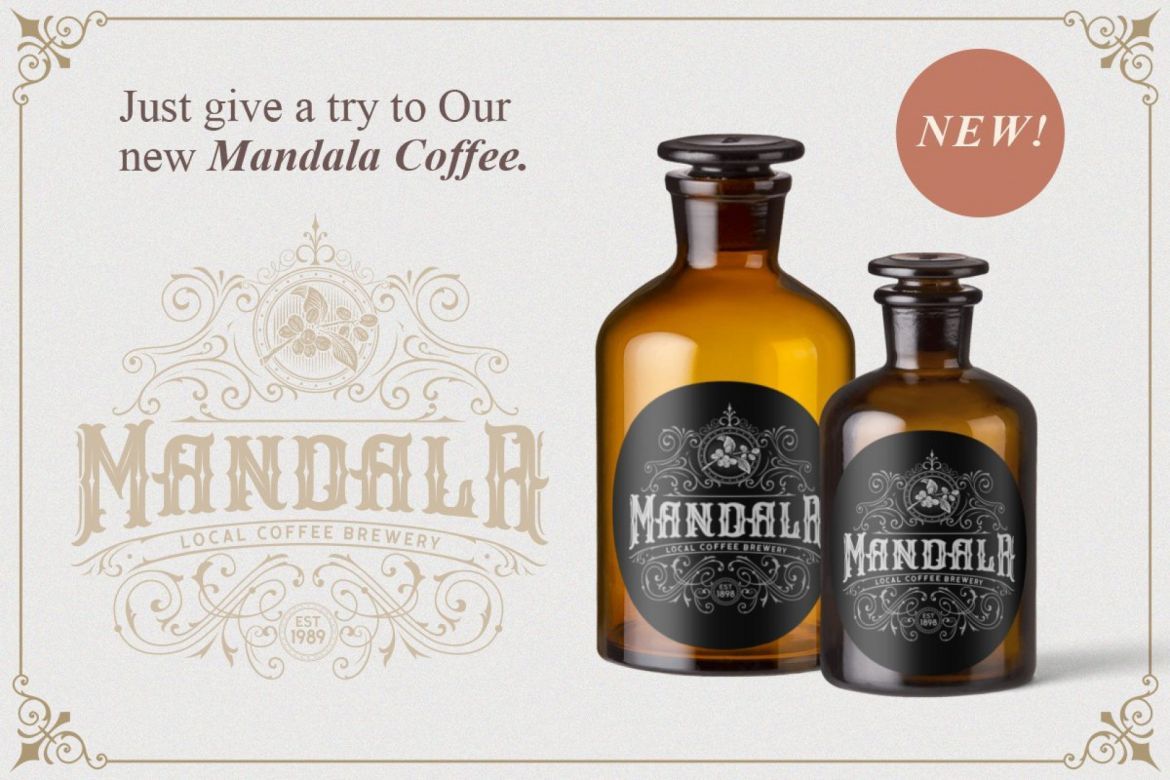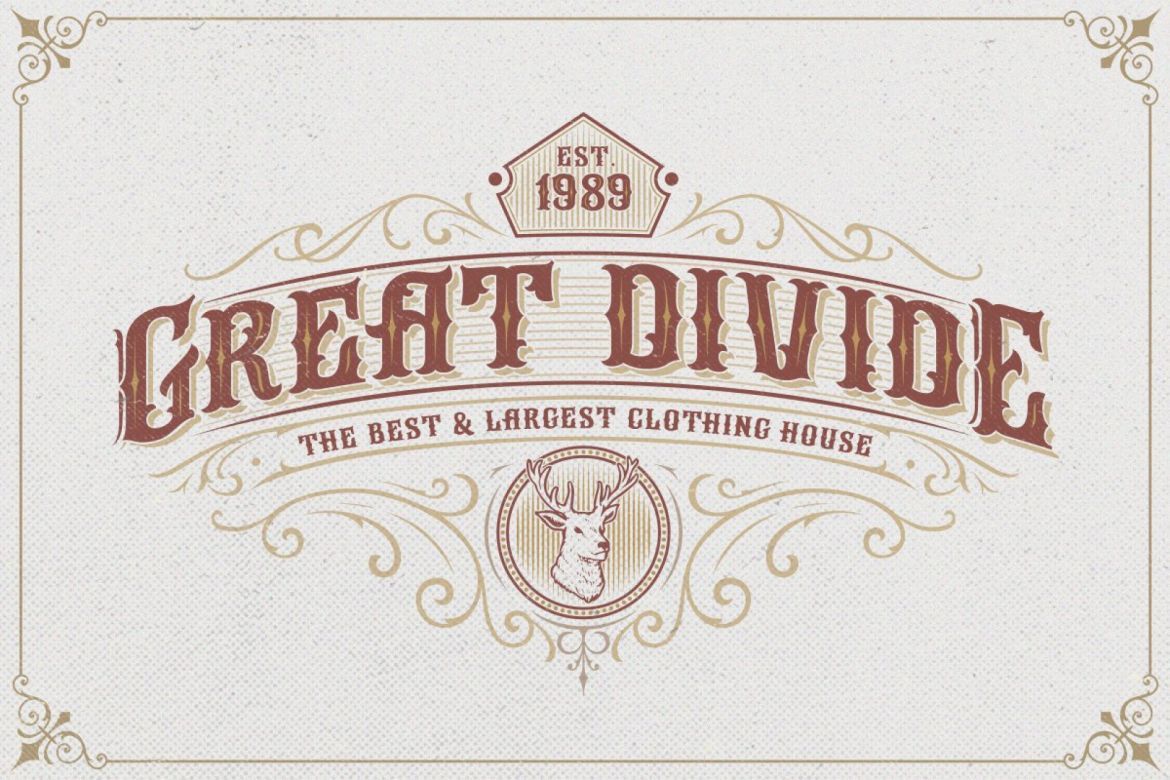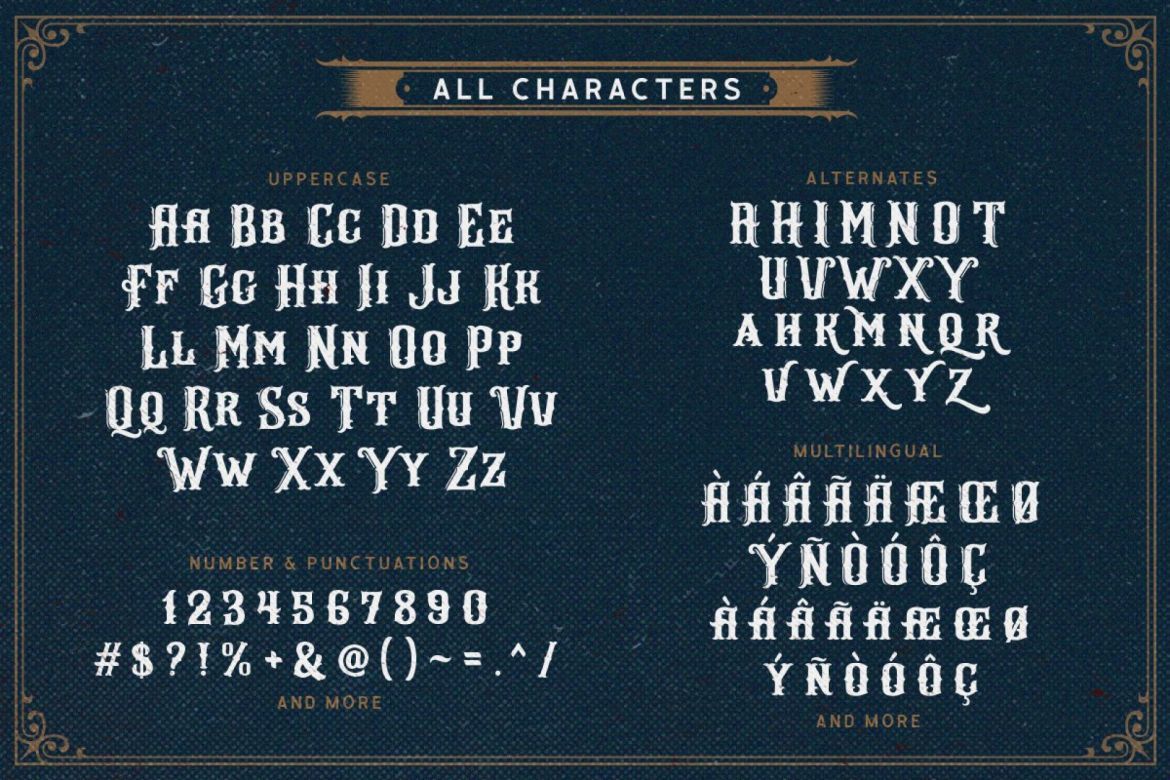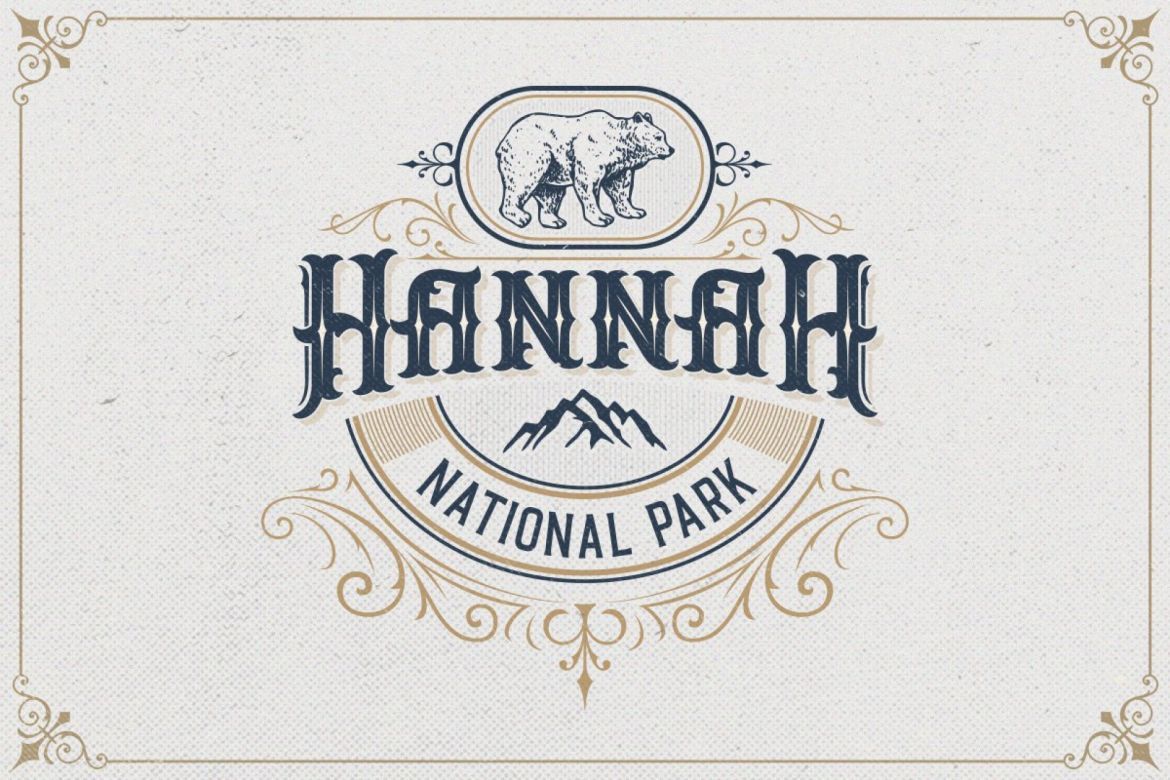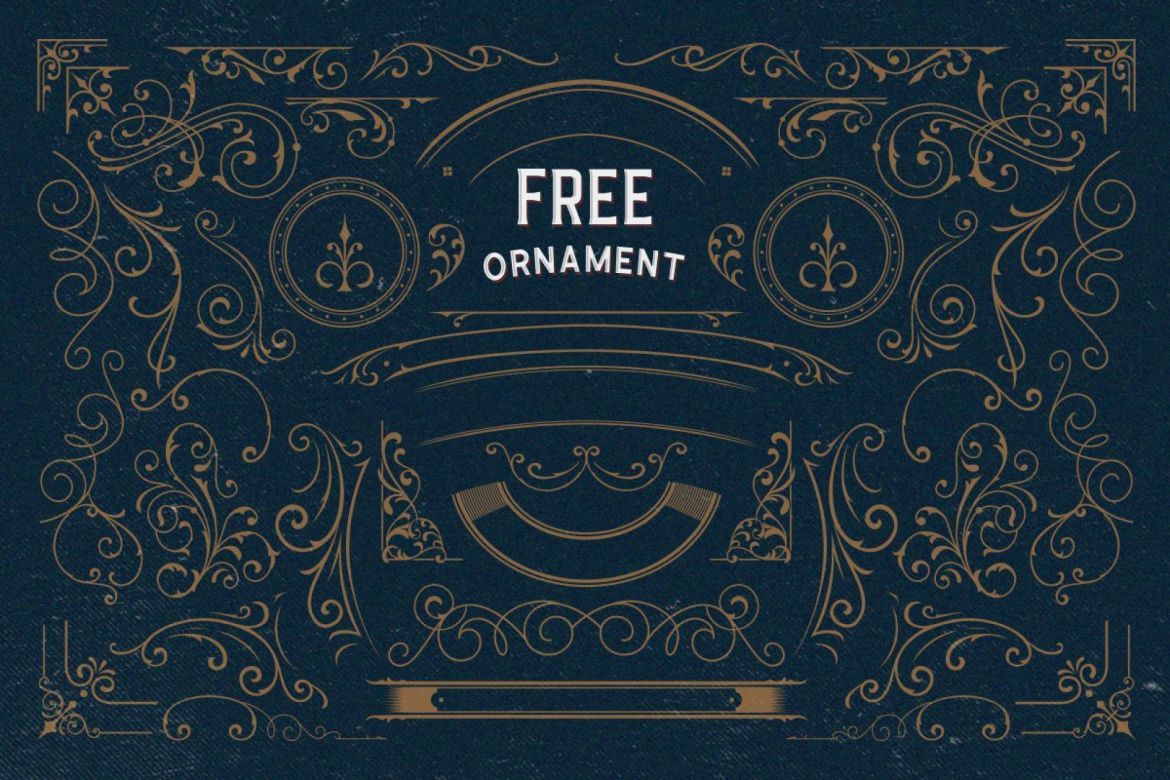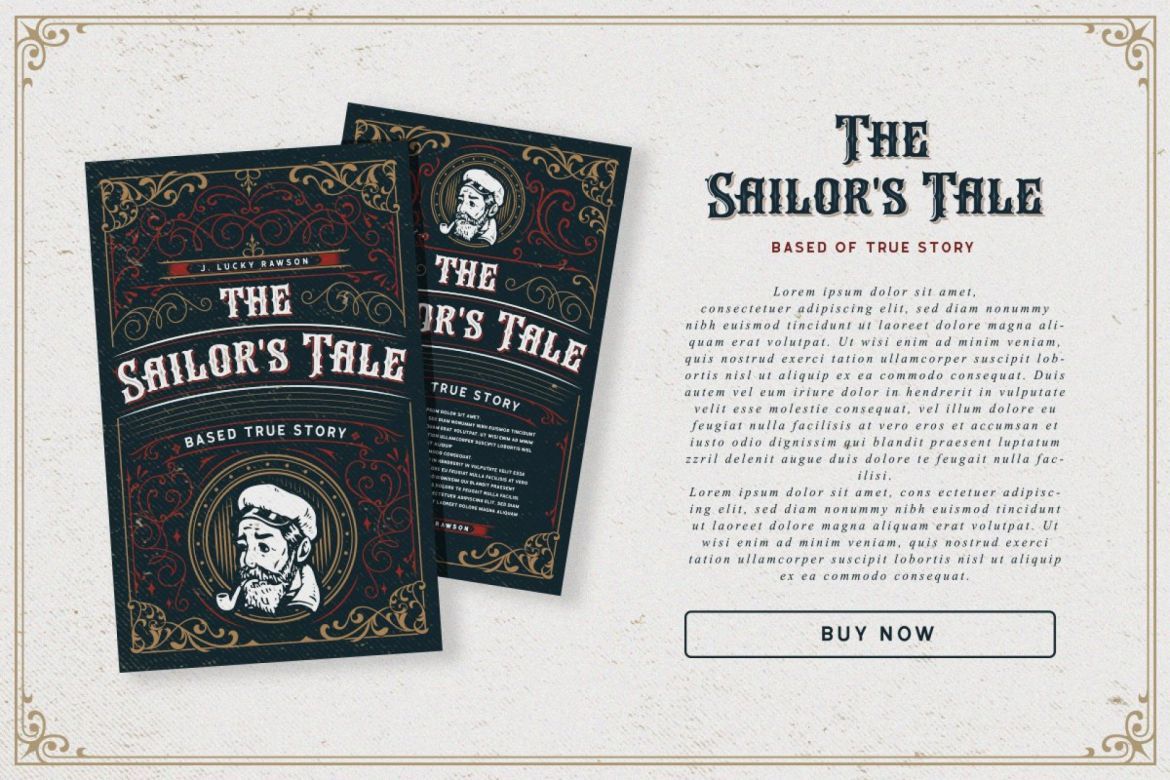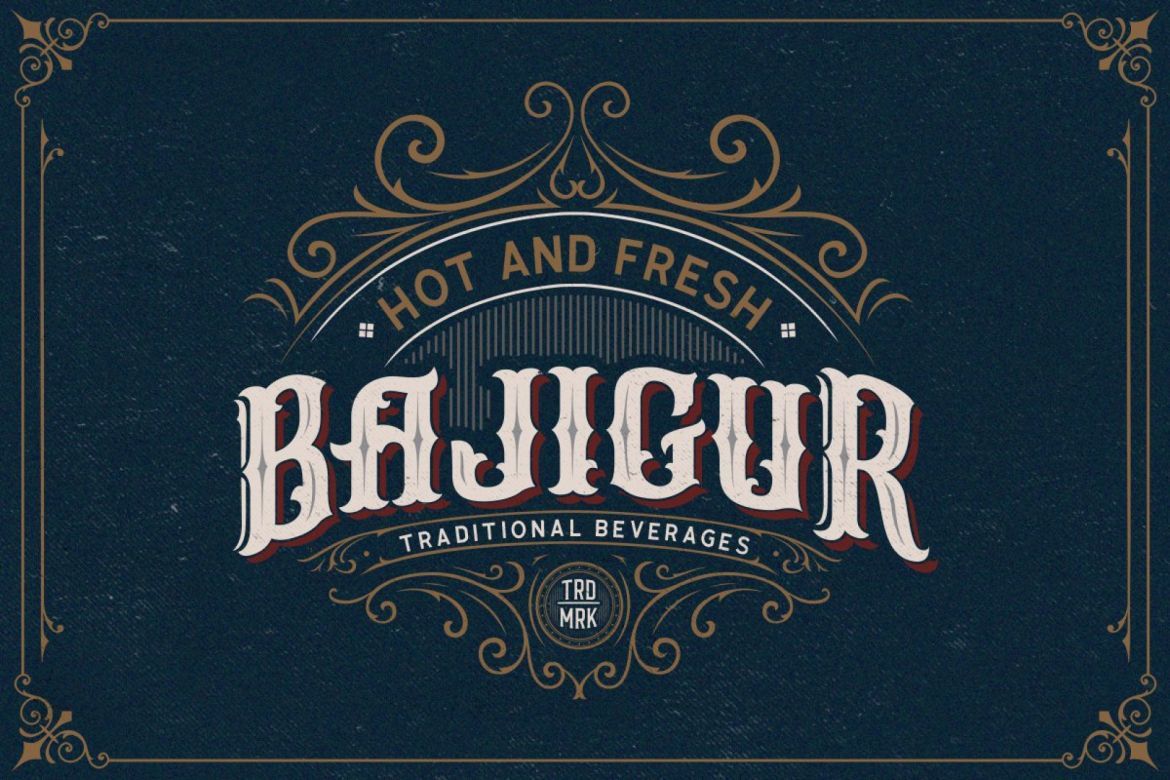
Arlington Layered Font & Ornaments
• it is suitable for headlines, logos, clothing, invitations, branding, packaging, advertising etc.
• this typeface contains beautiful decorative ornaments that are ready to be used to make vintage letters in seconds.